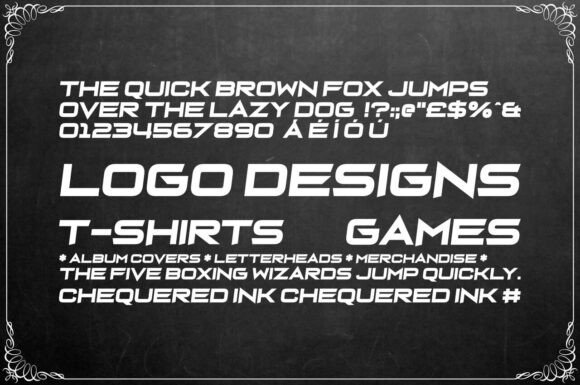
Introducing Decaydence Font: Elevate Your Brand with a Hand-Crafted Touch
In the world of design, fonts play a crucial role in shaping the identity of a brand. With the vast array of fonts available, it can be challenging to find one that stands out from the crowd. This is where Decaydence Font comes in – a unique, hand-crafted font designed to give your brand that extra wow factor. Whether you’re designing a logo, website, album cover, video game, or T-shirt, Decaydence Font is the perfect choice to add a touch of personality to your product.
The Power of Hand-Crafted Fonts
In an era dominated by machine-generated fonts, Decaydence Font offers a refreshing alternative. Our team of skilled designers at Chequered Ink has poured their hearts and souls into crafting a font that exudes a sense of human touch. By choosing a hand-crafted font, you’re not only getting a unique look but also a distinct feel that sets your brand apart from the competition.
What Makes Decaydence Font Special?
Decaydence Font is more than just a font – it’s an experience. With its intricate details and carefully crafted curves, this font is sure to captivate your audience. Here are just a few reasons why Decaydence Font stands out:
- Unique Character: Each letter in Decaydence Font has been meticulously designed to showcase a distinct personality. The font’s quirky charm makes it perfect for brands looking to add a touch of whimsy to their design.
- Versatility: Whether you’re designing a logo, website, or print material, Decaydence Font adapts seamlessly to any medium. Its flexibility makes it an excellent choice for designers who need a font that can keep up with their creative vision.
- Hand-Crafted with Love: At Chequered Ink, we understand the importance of human touch in design. Our team of designers has spent countless hours perfecting Decaydence Font to ensure that every detail, no matter how small, is of the highest quality.
Applications of Decaydence Font
The possibilities are endless with Decaydence Font. Here are just a few examples of how you can use this incredible font to elevate your brand:
- Logo Design: Create a lasting impression with a logo that stands out from the crowd. Decaydence Font is perfect for businesses looking to establish a strong brand identity.
- Website Design: Add a touch of personality to your website with Decaydence Font. Its unique character is sure to engage visitors and leave a lasting impression.
- Album Covers: Make your music stand out with a stunning album cover designed using Decaydence Font. The font’s quirky charm is sure to appeal to music lovers of all genres.
- Video Games: Create a immersive gaming experience with Decaydence Font. The font’s unique character is perfect for game developers looking to add a touch of personality to their game.
- T-Shirts and Merchandise: Design eye-catching merchandise with Decaydence Font. The font’s bold and quirky character is sure to appeal to anyone looking for a unique fashion statement.
Why Choose Decaydence Font?
In a world dominated by machine-generated fonts, Decaydence Font offers a refreshing alternative. By choosing a hand-crafted font, you’re not only getting a unique look but also a distinct feel that sets your brand apart from the competition. Here are just a few reasons why you should choose Decaydence Font:
- Stand Out from the Crowd: With Decaydence Font, you can rest assured that your brand will stand out from the crowd. The font’s unique character and quirky charm make it perfect for businesses looking to establish a strong brand identity.
- High-Quality Design: At Chequered Ink, we’re committed to delivering high-quality designs that exceed our clients’ expectations. Decaydence Font is a testament to our team’s dedication to excellence.
- Flexibility: Decaydence Font is designed to adapt seamlessly to any medium. Whether you’re designing a logo, website, or print material, this font is sure to deliver.
| Font Name | Decaydence Font |
In conclusion, Decaydence Font is the perfect choice for designers and crafters looking to add a touch of personality to their products. With its unique character, versatility, and hand-crafted touch, this font is sure to elevate your brand to the next level. So why settle for a machine-generated font when you can have a hand-crafted font that truly reflects your brand’s personality? Choose Decaydence Font today and give your brand the wow factor it deserves.